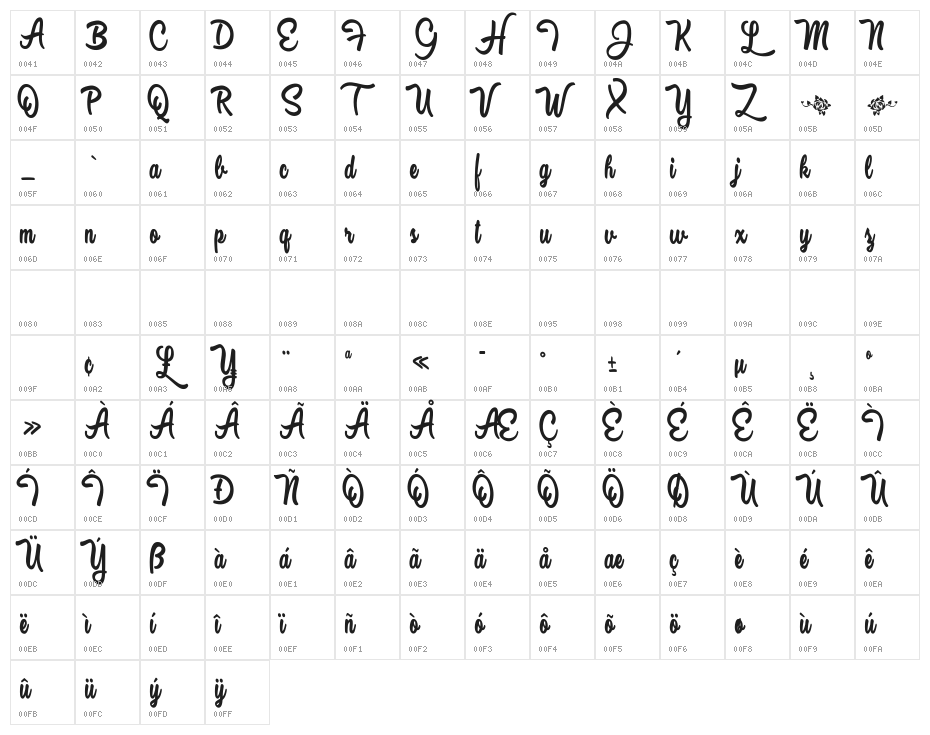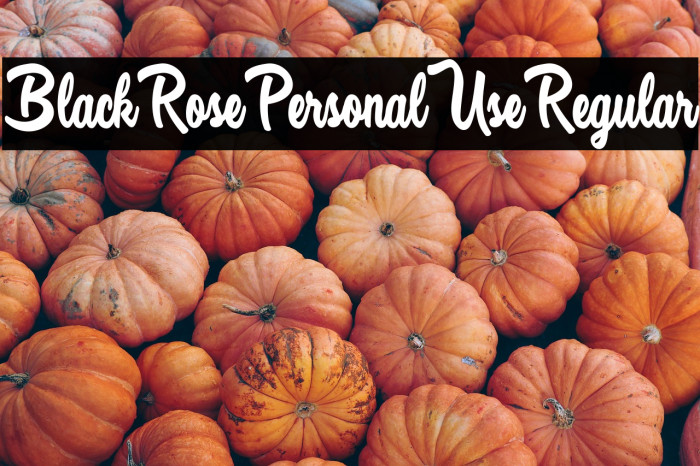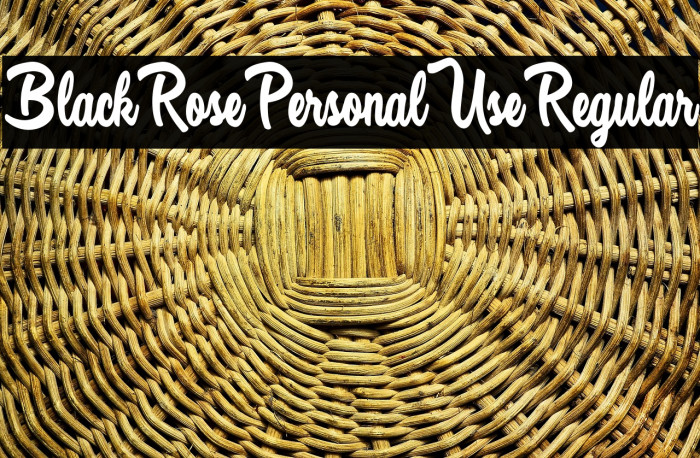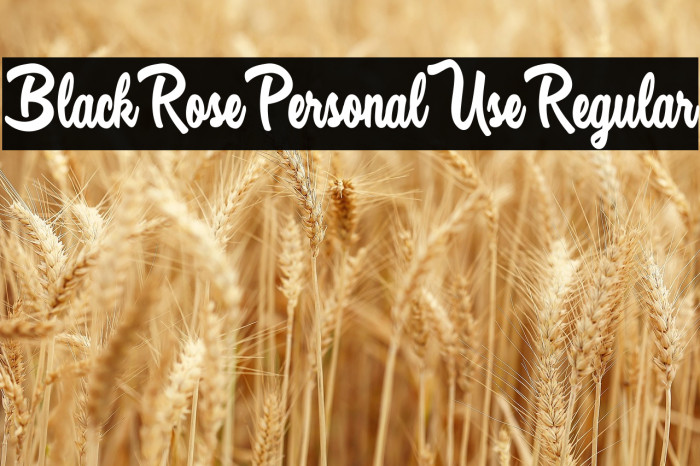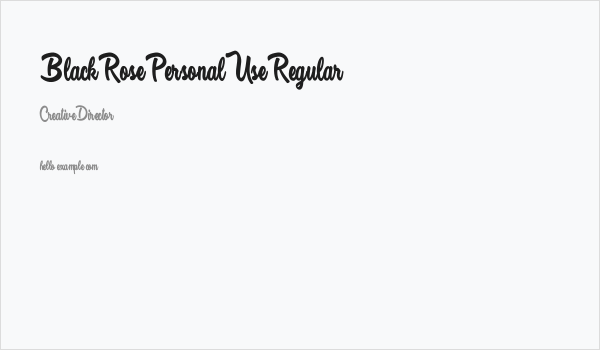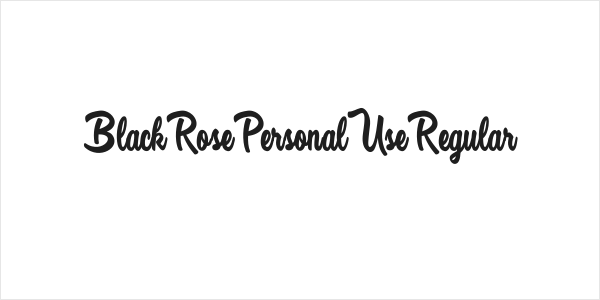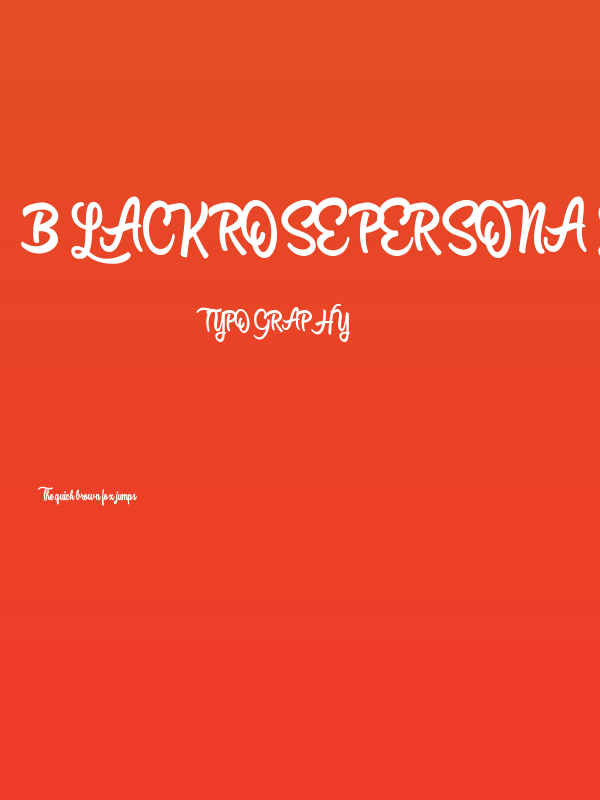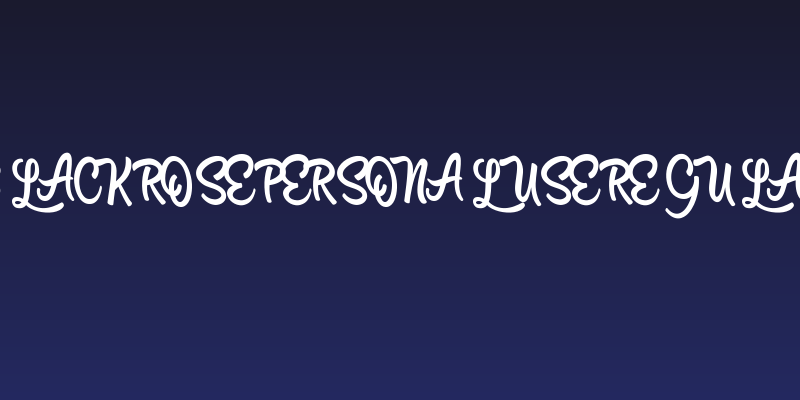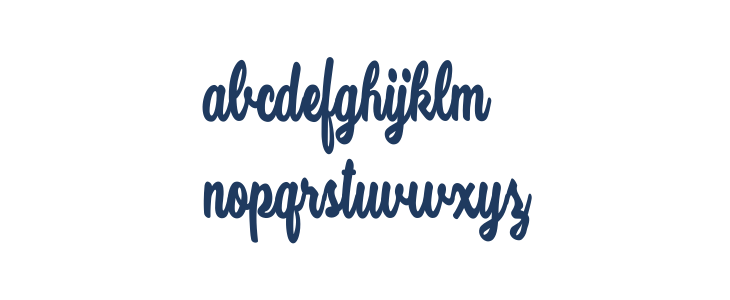
Black Rose Personal Use Regular Font
Black Rose Personal Use Regular Description
This font features a bold, decorative script style with a modern flair. The uppercase letters are characterized by their flowing, interconnected strokes, giving a sense of elegance and movement. The lowercase letters maintain a consistent style, with smooth curves and a slight slant, enhancing readability while retaining a stylish appearance. The font's design is both artistic and functional, making it suitable for a variety of creative applications. The characters are well-spaced, ensuring clarity and legibility even in smaller sizes. This font is ideal for projects that require a touch of sophistication and creativity.
| Proposed Projects | Ideal for wedding invitations, branding, logos, and artistic projects. |